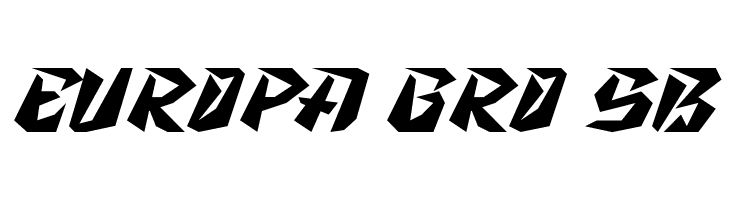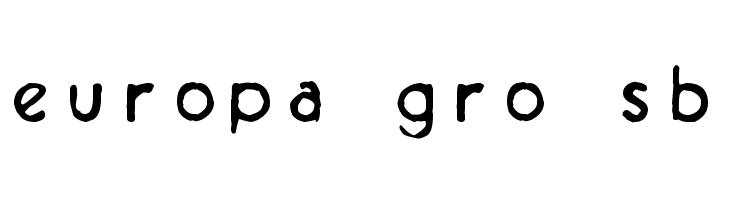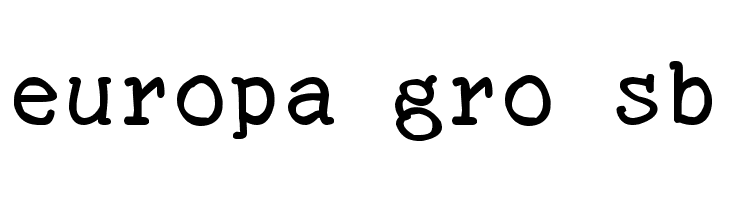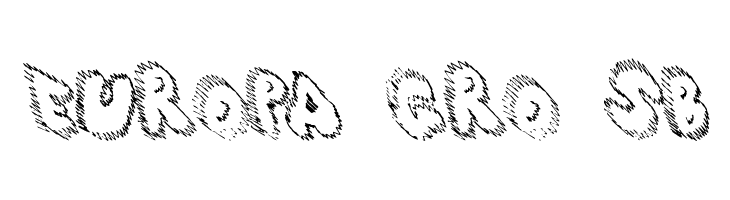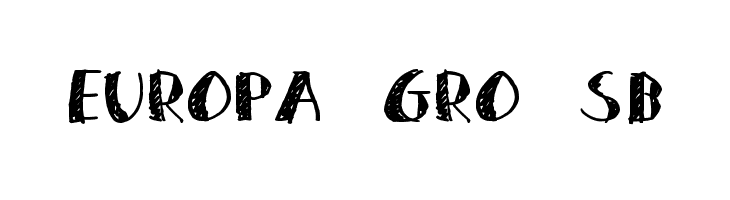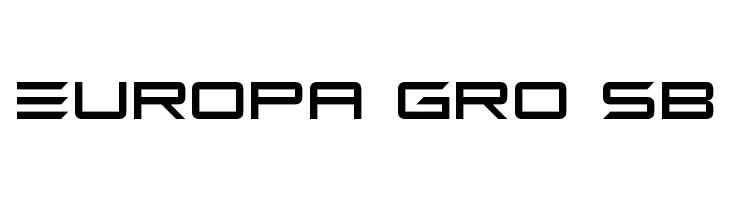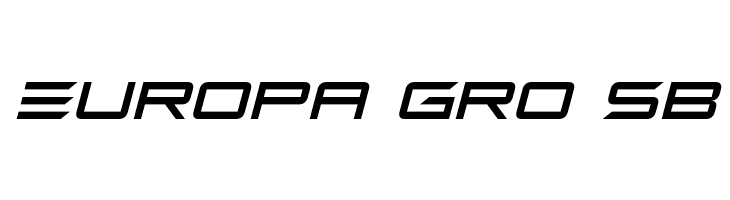
• zai Pencil Typewriter
A playful, handwritten typewriter-style font with rounded strokes.
• zai Royal Vogue Typewriter 1929
A vintage typewriter-style font with a distressed, handcrafted look.
• zai Seagull Felt-tip Pen
A playful, hand-drawn font with bold, dynamic strokes and a felt-tip pen style.
• zai Thin Handwritten Lettering
A thin, handwritten font with a playful and dynamic style.
• Zanden
A bold, angular font with a futuristic and edgy design.
• Zany Sharp
• ZapControl
A bold, jagged font with an energetic, electric style.
• Zen Os
• Zen Os Italic
• ZEPPELIN Bold
A bold, industrial font with geometric shapes and high contrast.